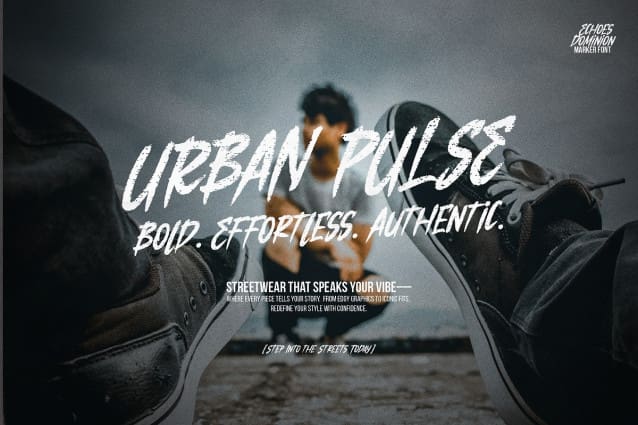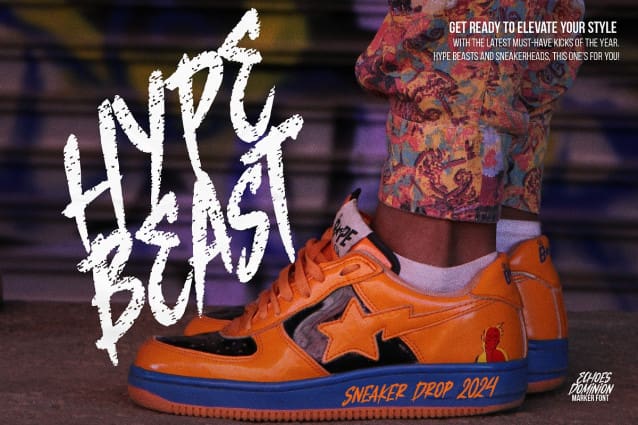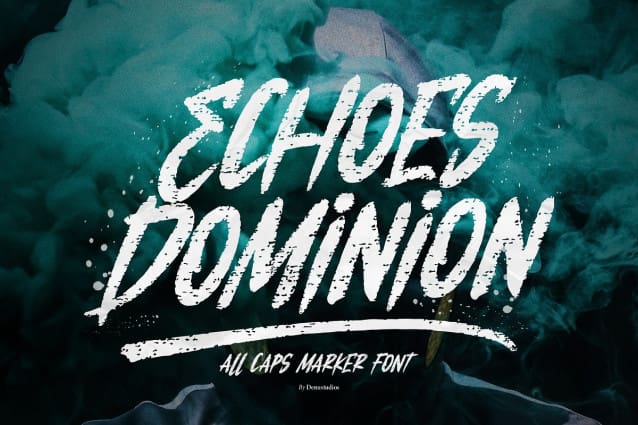
Echoes Dominion Font
Echoes Dominion | Marker Font, from Denustudios, suitable for any projects such as: logos, branding projects, homeware designs, product packaging, mugs, quotes, posters, shopping bags, t-shirts, book covers, name card, invitation cards, greeting cards, label, photography, watermark, special events, and all your other lovely projects that need a Marker Font taste.